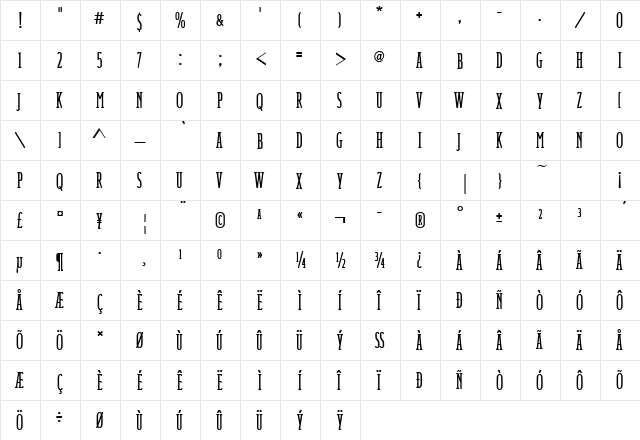
Italia Becker Compress Med Regular
Design Context for Italia Becker Compress Med Typeface
Italia Becker Compress Med is a composed and adaptable typeface that performs quietly and consistently across a wide range of design contexts.